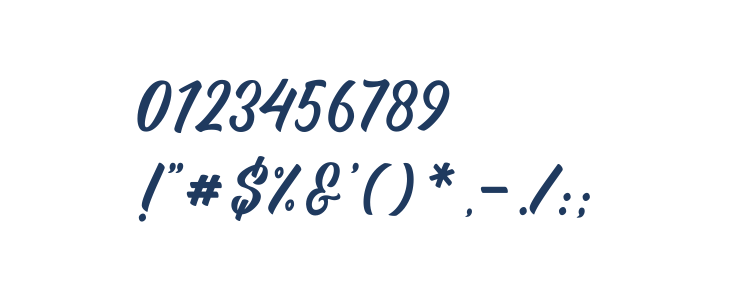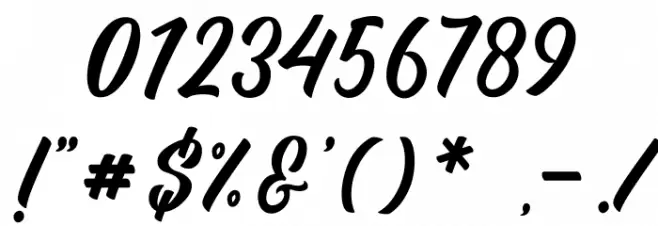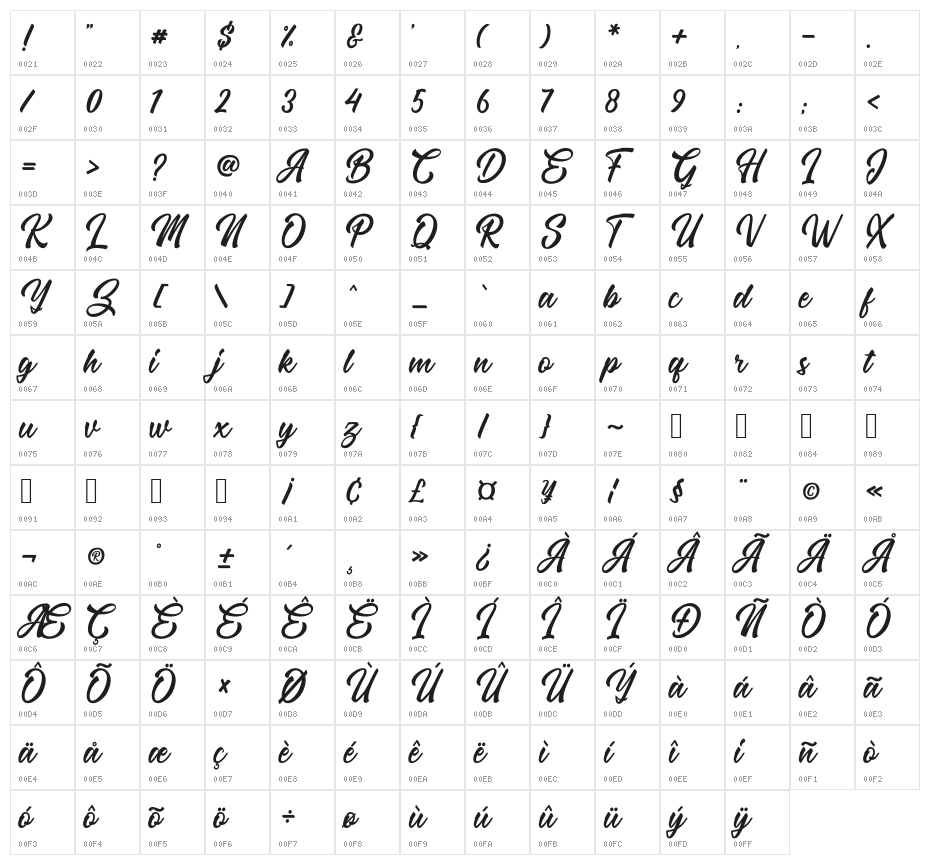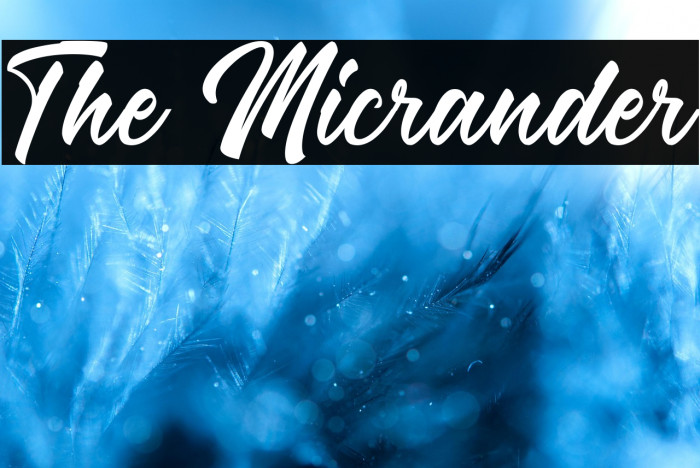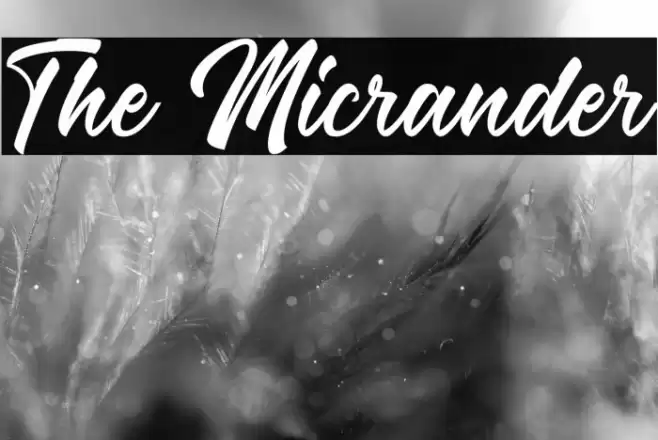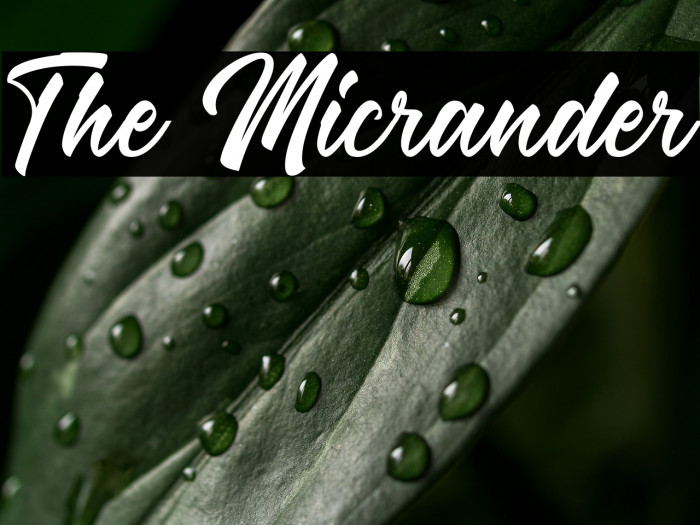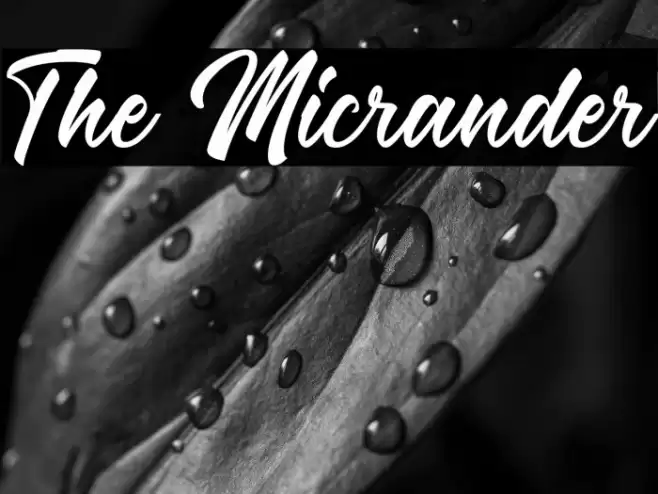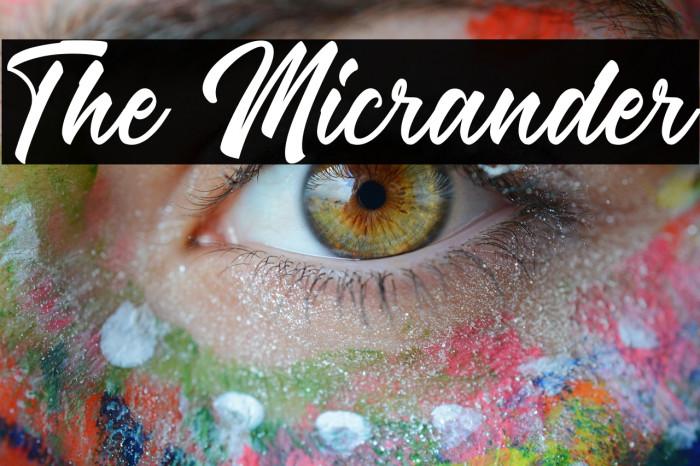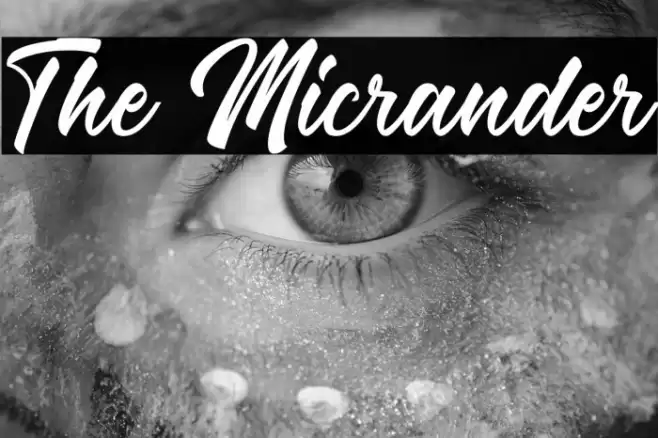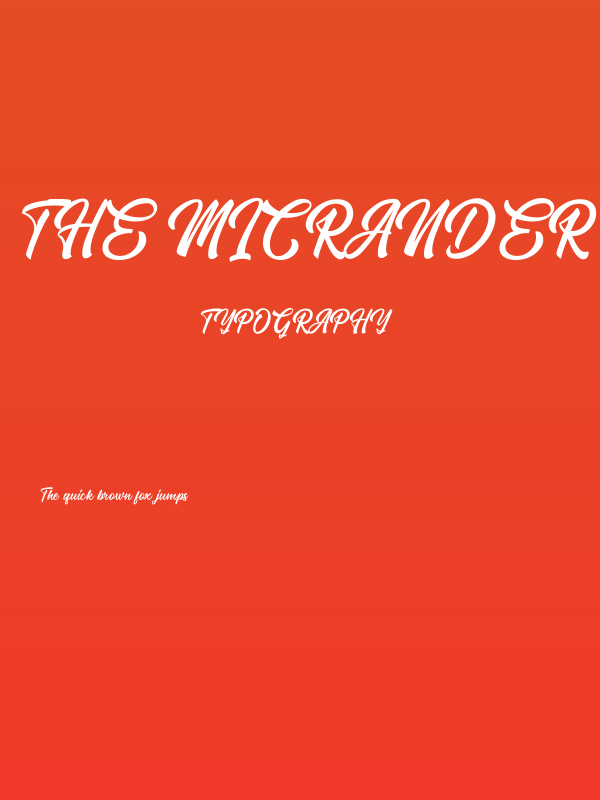
The Micrander Font
The Micrander Description
This font features a flowing, cursive style with elegant, sweeping lines that give it a handwritten appearance. The uppercase letters are bold and prominent, with distinctive loops and curves that add a touch of sophistication. The lowercase letters maintain a consistent style, with smooth connections between characters, enhancing its script-like quality. Numbers are clear and legible, matching the overall aesthetic. Special characters are well-integrated, maintaining the font's cohesive look. This font exudes a sense of elegance and creativity, making it suitable for various artistic applications.